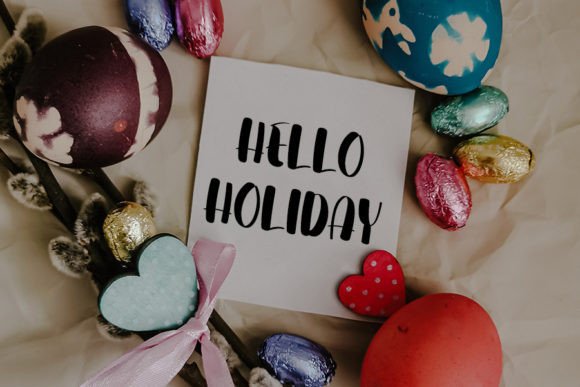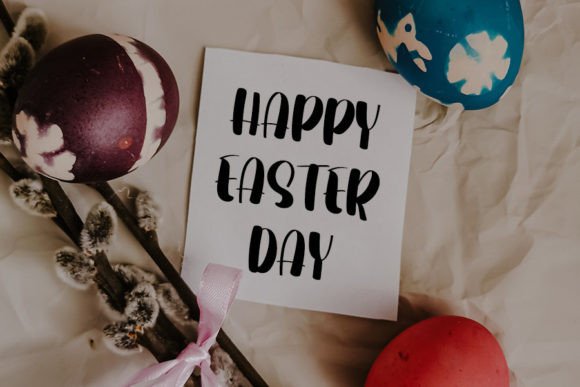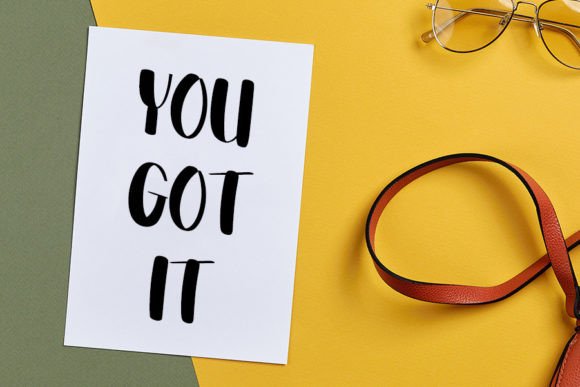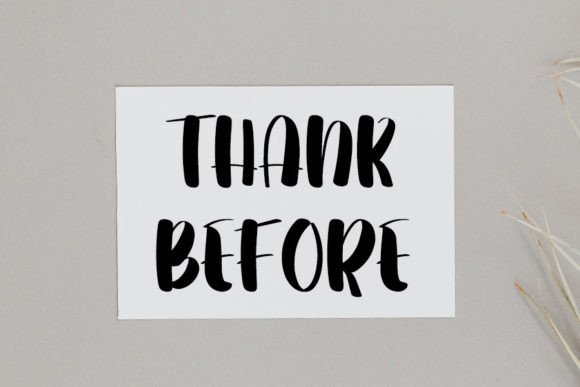
Bad Bunny Font
About Bad Bunny Font
The Bad Bunny Font Download is a stylish handwritten typeface that captures both elegance and modern flair. Inspired by timeless calligraphy, this font balances classic beauty with a contemporary atmosphere, making it a versatile option for creative professionals. Its smooth strokes and impeccable form bring character and refinement to every project.
Bad Bunny was designed with balance and variation in mind. The letters flow gracefully while maintaining readability, making it ideal for use across digital platforms, print design, and branding materials. Whether you’re working on personal projects or client-based designs, this font adds a unique spark that elevates your work.
Features of Bad Bunny Font
By choosing the Bad Bunny Font Download, you’ll enjoy features that highlight its versatility:
• Handwritten style inspired by elegant calligraphy
• Smooth and stylish curves with a polished appearance
• Balanced proportions for readability at all sizes
• Contemporary vibe that adapts to modern projects
• Wide compatibility for both print and digital applications
Best Uses for Bad Bunny Font
The Bad Bunny Font Download works wonderfully across many design categories. Some of the most common applications include:
• Logos and Branding – Build strong and stylish brand identities
• Wedding Invitations – Add elegance and romance to special events
• Greeting and Thank You Cards – Deliver warmth through personalized lettering
• Product Packaging – Make labels, tags, and boxes visually appealing
• Social Media Graphics – Enhance posts, quotes, and banners
• Editorial Design – Perfect for magazine titles and spreads
• Posters and Flyers – Bold enough for impactful headlines
Its ability to blend formal sophistication with playful charm makes it a go-to choice for many types of projects.
Why Choose Bad Bunny Font?
Designers love the Bad Bunny Font Download because it successfully balances tradition and modernity. The calligraphic influence makes it timeless, while the contemporary styling ensures it stays relevant across current design trends. Unlike overly ornate fonts, Bad Bunny maintains versatility and legibility, making it suitable for both professional and creative uses.
For businesses, this font communicates confidence and elegance. For personal projects, it adds a personal and stylish touch. Whether used in branding, invitations, or social media, Bad Bunny adapts seamlessly to your vision.
The Bad Bunny Font Download is a stylish handwritten script that enhances creativity, elegance, and versatility. From logos and packaging to event invitations and digital graphics, this font adds timeless charm and contemporary appeal to every design.